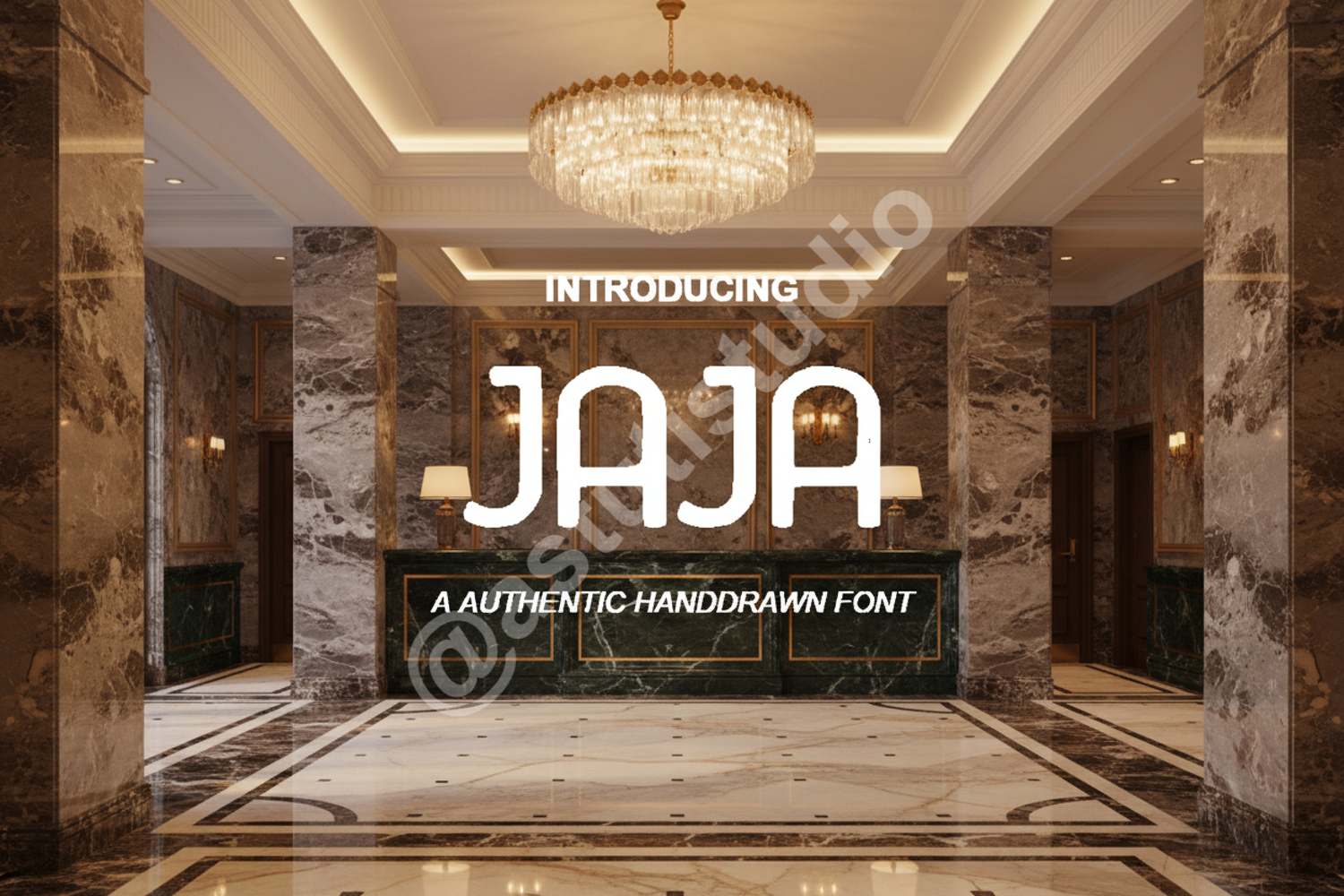
Jaja | Chic Modern Sans Serif Typeface
Jaja
Elevate your design projects with Jaja, a premium sans serif typeface that embodies modern elegance and professional versatility. Meticulously crafted with clean lines and balanced proportions, Jaja is designed to provide a sophisticated touch to any creative work, ensuring your designs stand out with a polished and high-end feel.
- Comprehensive Uppercase and Lowercase characters
- Numerals and Punctuation
- Extensive Multilingual Support for global reach
- Professional Branding: Perfect for creating memorable logos and corporate identities.
- Editorial Design: Ideal for magazine layouts, headlines, and clean body text.
- Wedding Stationery: Adds a touch of modern class to invitations, menus, and place cards.
- Social Media: Enhances your aesthetic across Instagram, Pinterest, and digital marketing materials.
- Product Packaging: Great for luxury goods, lifestyle brands, and minimalist packaging concepts.